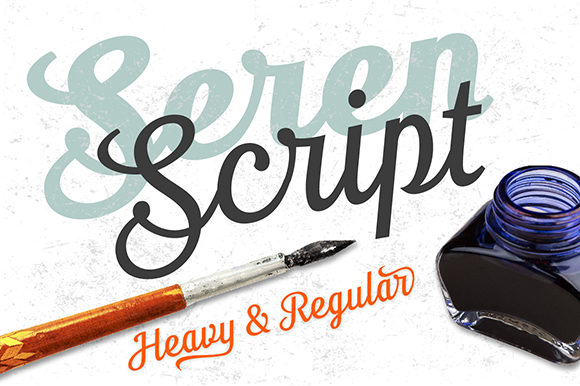
Seren Font
Prepare yourself to be mesmerized by Seren Font, a retro-inspired masterpiece that will transport you to a bygone era of elegance and charm. This exquisite script font, meticulously crafted by TypeFaithFonts, captures the essence of nostalgia with its 430 beautiful glyphs. Seren is not just a font; it's a gateway to a world where the past meets the present, creating a harmonious blend of classic and contemporary aesthetics.
Immerse yourself in the captivating allure of Seren Font's meticulously crafted characters, each stroke imbued with a timeless beauty that will leave you breathless. Its graceful curves and delicate flourishes evoke a sense of romance and sophistication, while its sturdy structure ensures readability and versatility. Whether you're a seasoned designer or just starting your creative journey, Seren Font is the perfect companion for any project that demands a touch of vintage charm.
Unleash your creativity and let Seren Font guide you through a world of possibilities. Its timeless appeal makes it the ideal choice for branding, logos, invitations, posters, and any other project where a touch of retro elegance is desired. Seren Font is not just a font; it's an artistic expression that will transform your designs into captivating masterpieces.
Embrace the allure of Seren Font and embark on a creative adventure where the past and present collide in perfect harmony. Its beauty and versatility will captivate your audience, leaving them spellbound by the charm of a bygone era. Download Seren Font today and unlock a world of creative possibilities that will leave you inspired and amazed.